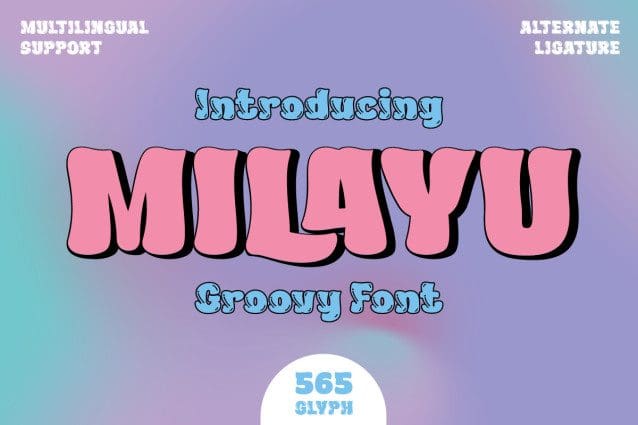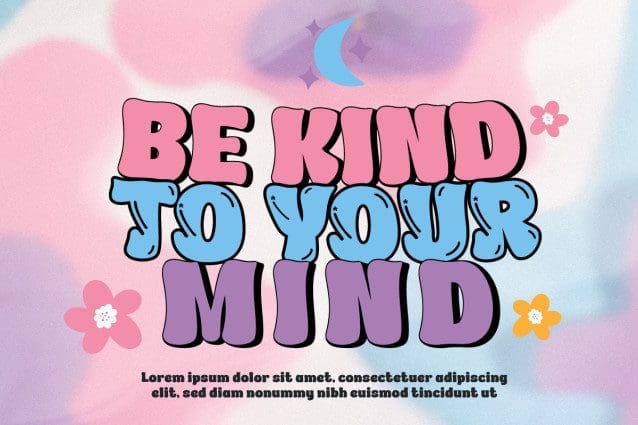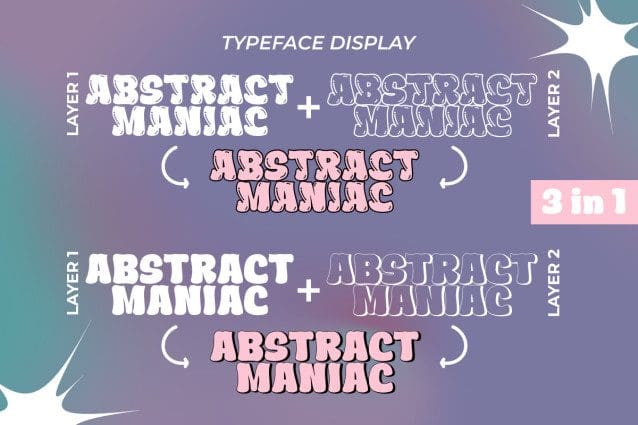
Milayu Groovy Font
Milayu Groovy Font, a Groovy Display font that will turn your every project into a bold and vibrant masterpiece. If you are looking for a way to give a strong, bold, and classic touch to your designs, it is the perfect choice.
Milayu Groovy Font comes in three different variants: Regular, Outline, and Shadow. This means you have the flexibility to bring different styles to each of your projects. Whether you want a strong, bold message, or a lighter look with an outline effect, Milayu Groovy Font has everything you need.
What makes Milayu truly special are its abundant character ligatures and alternatives. This gives you the freedom to be creative and create unique and stylish designs. With multilingual support, it is also ready to bring your message to the world.
Milayu Groovy Font is the perfect choice for projects that require a bold, vibrant look. Let Milayu inspire your creativity and deliver your message in an unforgettable style.